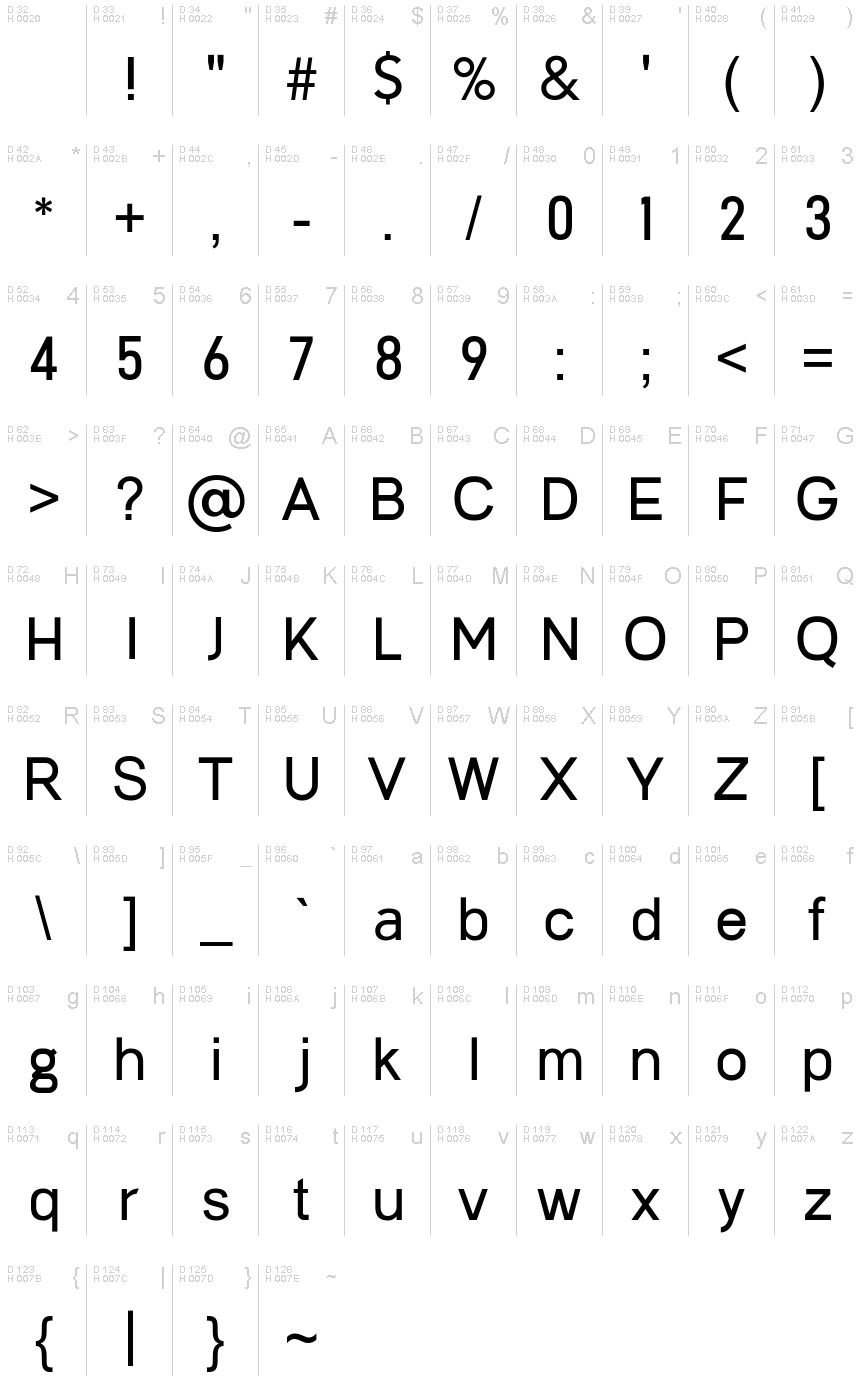
Roundman
Roundman font by UI Creative is a unique sans serif typographic gem, striking with its clean curves and modern simplicity. The font radiates a harmonious balance, making each character distinctly rounded yet perfectly aligned. Ideal for projects demanding an approachable and friendly visual identity, Roundman’s design breaks away from traditional rigidity, delivering warmth and versatility.
Perfect for branding, headings, and editorial designs, this free font offers a refreshing aesthetic that captures attention while maintaining legibility. Whether you’re crafting logos or preparing marketing materials, download the Roundman font to infuse your projects with a sense of modern elegance and style that's sure to impress designers and audiences alike.